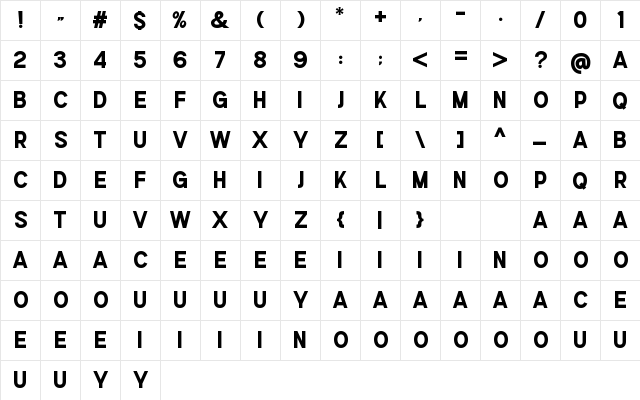
Agains Regular
Foundry: Perfectype
Designer: Usman Albaehaqi
Design Context for Agains
Agains is a composed and adaptable typeface that performs quietly and consistently across a wide range of design contexts.